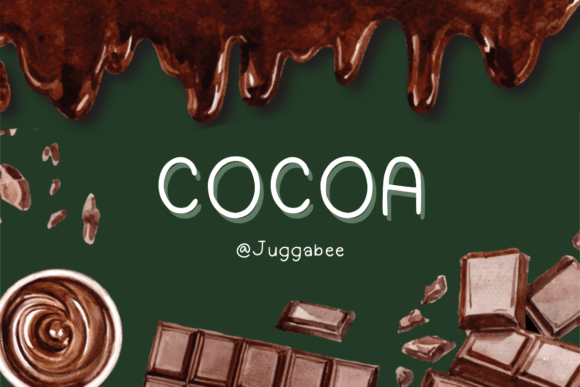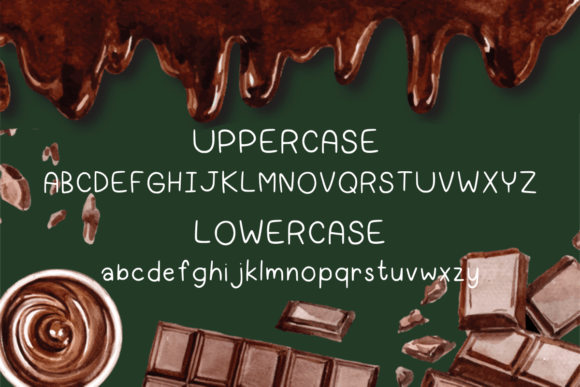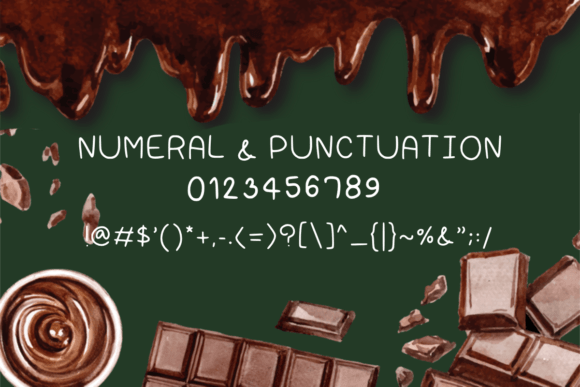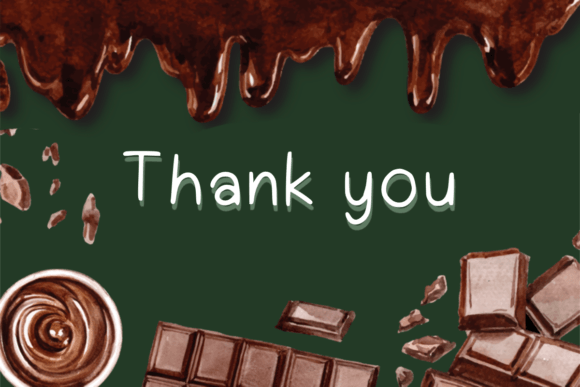
Cocoa Font
The Cocoa Font Download is a fun and quirky handwritten script that embodies playfulness and authenticity. With its casual curves and friendly strokes, this typeface is perfect for projects that need energy and personality. Whether you’re designing children’s activities, school projects, or creative branding, Cocoa adds charm and uniqueness to your work.
A Fun and Quirky Handwritten Style
The Cocoa script font combines playful handwritten shapes with balanced readability. As a result, it feels joyful and engaging. Furthermore, its versatile design makes it an excellent choice for personal crafts as well as professional use.
Perfect for Children’s Activities and School Projects
Handwritten fonts always make educational and kid-focused projects more engaging. The Cocoa Font is ideal for activity books, worksheets, classroom posters, and playful stationery. Because of its quirky style, each project feels fun and relatable. In addition, it helps children’s materials look creative and approachable.
Branding and Logo Design with Cocoa Font
Typography builds strong brand identities. The Cocoa handwritten font works beautifully for logos, product packaging, and boutique branding. Its quirky strokes give businesses a playful, approachable image. Therefore, it works especially well for children’s brands, crafts, and lifestyle products.
Posters, Cards, and Creative Displays
The Cocoa Font Download is also perfect for posters, greeting cards, invitations, and editorial layouts. Its fun yet clear strokes allow designs to look stylish while staying legible. Consequently, it is a great choice for creative professionals seeking originality.
In today’s design landscape, fonts must adapt well to digital platforms. The Cocoa typeface integrates seamlessly into Instagram posts, YouTube thumbnails, Pinterest graphics, and blogs. Because of its quirky handwritten style, it adds vibrancy and playfulness to any digital project.
Why Designers Choose Cocoa Typeface
Designers appreciate fonts that combine personality with usability. The Cocoa handwritten script provides a fun handwritten touch while keeping readability high. Moreover, its timeless, quirky charm ensures it stays relevant for future creative projects.
Add Playful Energy to Your Projects Today